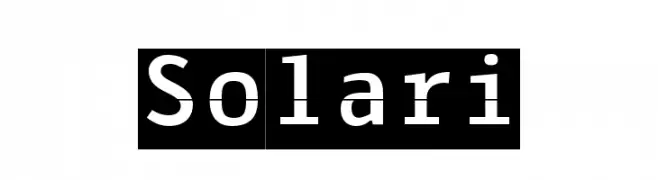
( Didik Pratikno - joanatype.daportfolio.com )
A bold, geometric font with high contrast and structured design.
( Fonts by Roland Huse - rolandhuse.com )
A futuristic, geometric font with blocky, angular letterforms.
A bold, geometric font with a futuristic and edgy design.
A bold, expressive handwritten font with dynamic brush-like strokes.
( Xerographer Fonts - Max Infeld - xerographer.blogspot.com )
A geometric and angular font with a futuristic and abstract design.
( Fonts by Mariyana )
A playful, bold font with rounded, bubbly characters.
An elegant, flowing script font with connected letterforms and a sophisticated style.
An elegant, flowing script font with graceful curves and loops.
( Qkila - Quentin Aquila - www.creativefabrica.com/designer/qkila/ )
A playful, hand-drawn script font with a whimsical and textured appearance.